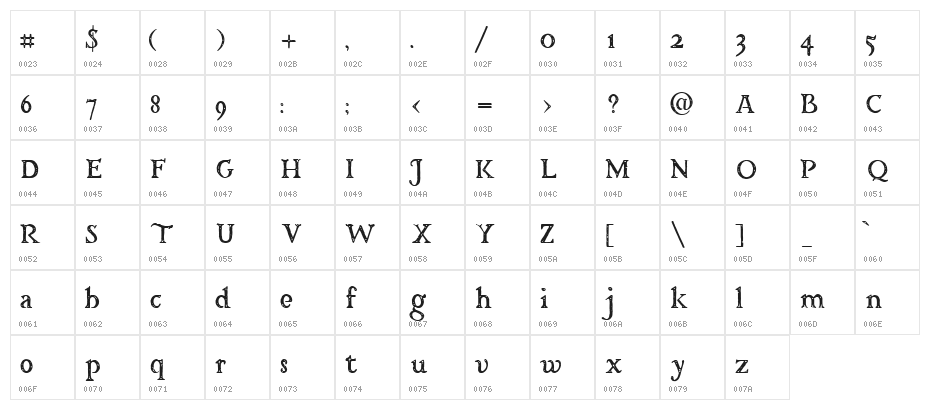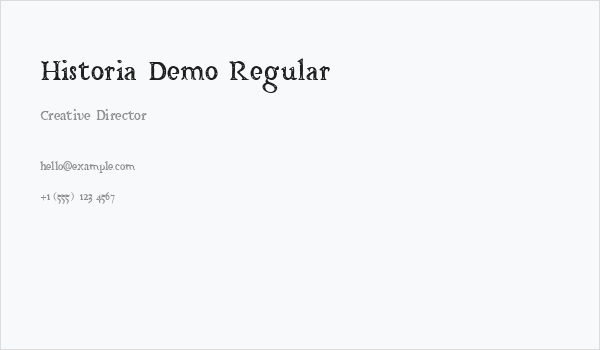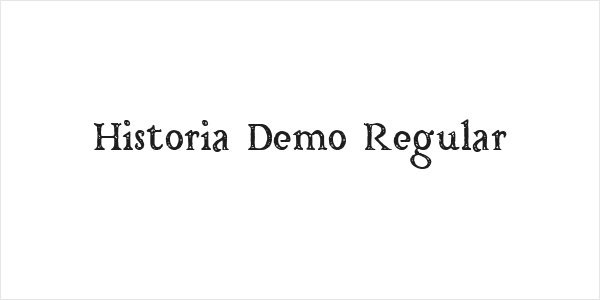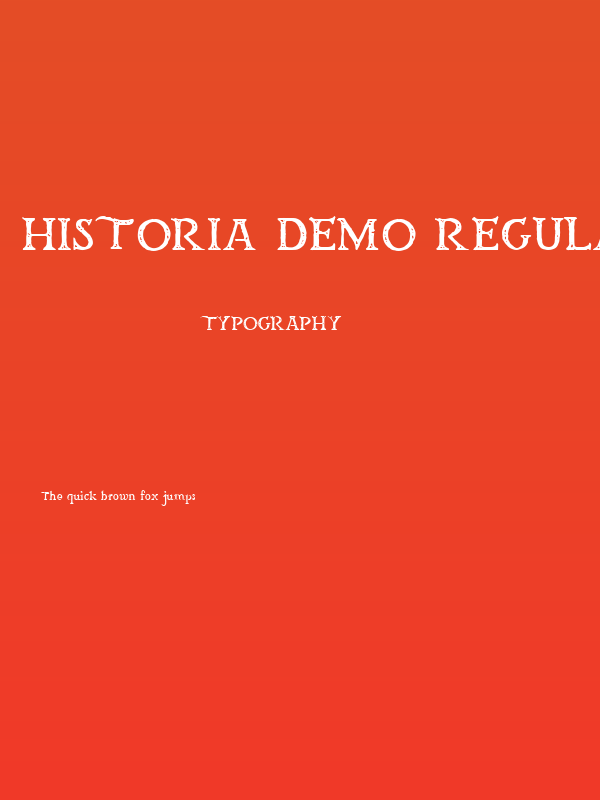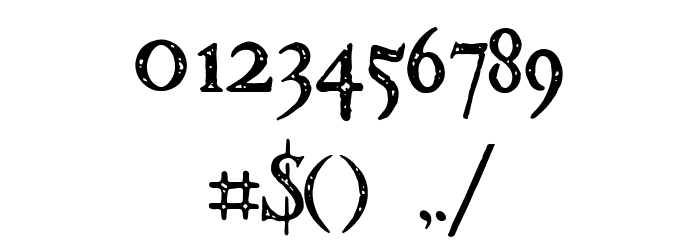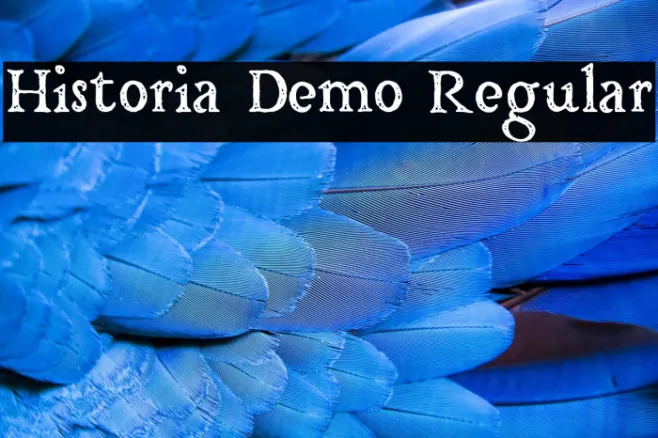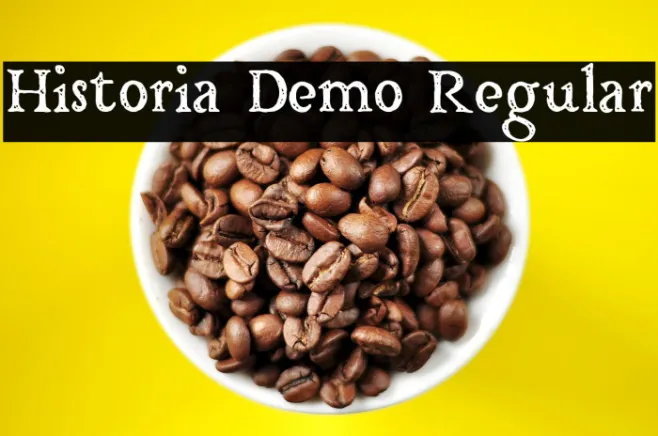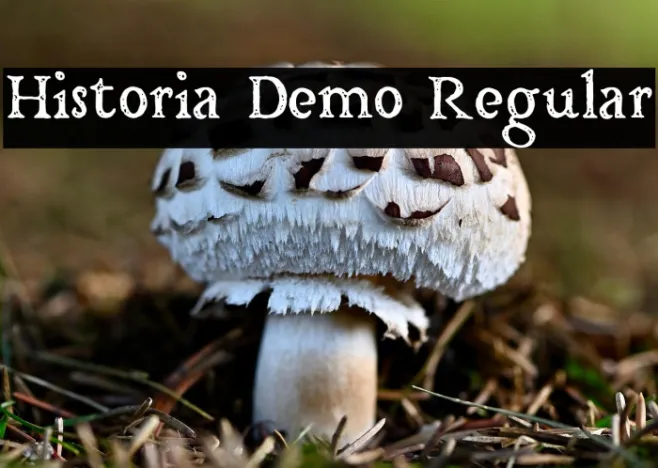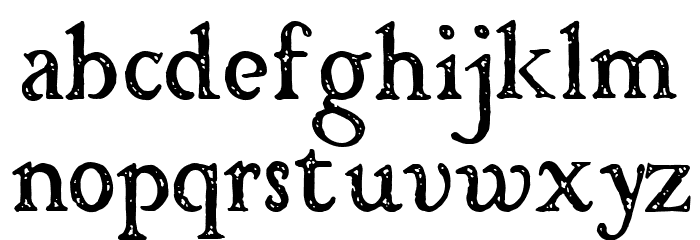
Historia Demo Regular Font
Historia Demo Regular Description
This font features a distinctive, vintage style with a textured appearance that mimics the look of aged, worn-out type. The characters have a serif design with uneven edges and subtle imperfections, giving them a handcrafted, historical feel. The uppercase letters are bold and commanding, while the lowercase letters maintain a consistent style with slightly more rounded forms. Numbers and special characters follow the same aesthetic, ensuring a cohesive look across all text. The font's unique character makes it suitable for projects that require a touch of nostalgia or an antique vibe.
| Use Case | Headlines, Logos, Decorative text |
| Proposed Projects | Ideal for vintage-themed posters, historical book covers, antique branding, and retro event invitations. |